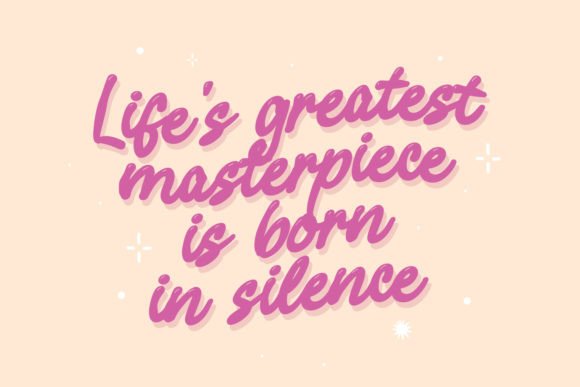
Juicy Peach Font
Juicy Peach is a vibrant and playful display font that evokes the juicy sweetness of ripe peaches. Each letter in Juicy Peach is crafted with rounded shapes reminiscent of bubbles, giving it a soft and inviting appearance. The fairly thick weight of the font adds to its bold and vibrant presence.
What sets Juicy Peach apart is its grunge version, which adds a distressed and weathered texture to the font. Perfect for adding a touch of authenticity and character to your designs, the grunge version of Juicy Peach adds a sense of vintage charm and nostalgia. In addition, enjoy the features here.
Juicy Peach fits in headlines, logos, posters, flyers, branding materials, print media, editorial layouts, and many more designs. Find out more ways to use this font by taking a look at the font preview.